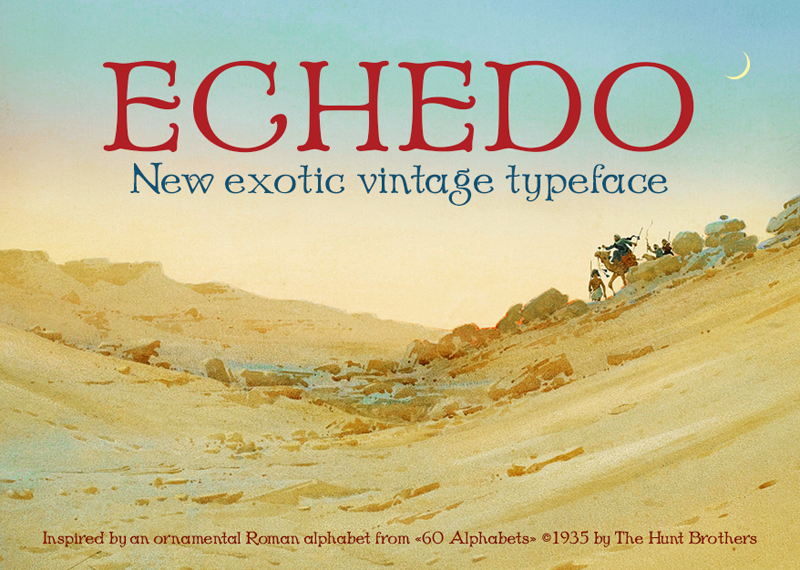
Echedo
Echedo Typeface
This typeface was traced from an unnamed ornamental Roman alphabet from the 1958 edition of «101 Alphabets» by W. Ben Hunt and Ed.C Hunt. Originally published as «60 Alphabets» in 1935.